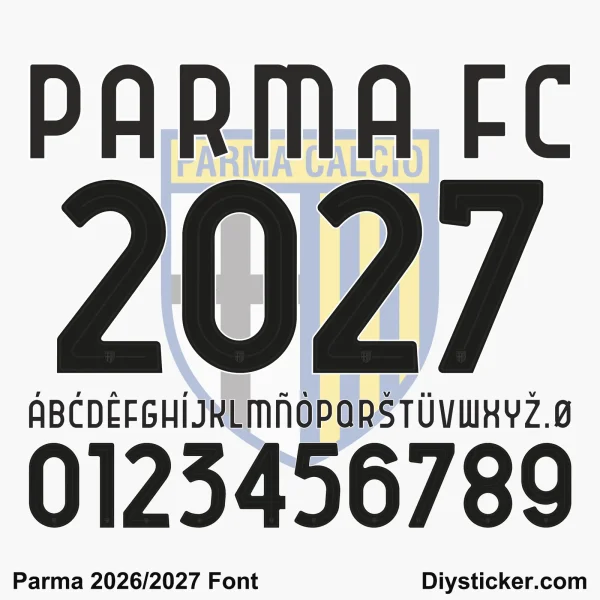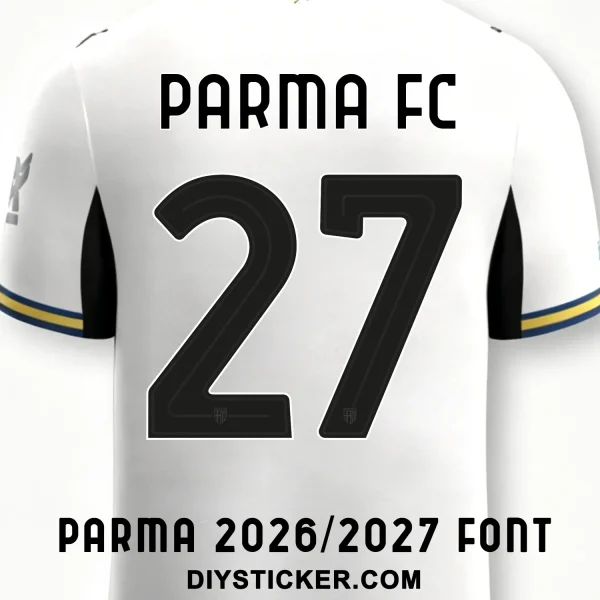
Replicate the classic, modern match-day look of I Crociati! This premium digital file pack features the sleek Parma 2026-2027 Font and Numbers rendered in the club’s iconic matte black tone. It is expertly crafted with a rounded, minimalist aesthetic, subtle tone-on-tone internal borders, and the official club shield crest nested precisely at the base of each character.
Complete uppercase alphabet, squad numbers 0-9, and specific diacritic accents.
Upgrade your custom apparel catalog with the absolute latest look from the Stadio Ennio Tardini! This digital typography product delivers the full Parma Calcio 2026-2027 font style designed for the upcoming Italian football campaigns. Striking a beautiful balance between modern geometric minimalism and traditional athletic identity, this font face features streamlined, elongated proportions accented by rounded corner folds, a clean internal track inlay, and the mini Parma club crest crisping up the bottom of each numeric glyph.
Parma font 2026/2027 Comprehensive Character Mapping
A-Z Uppercase Alphabet: High-contrast, sleek geometric letterforms built for bold pitch legibility and clean tracking on official jersey nameplates.
0-9 Tracked Numbers: Beautifully curved numeric designs showcasing clean matte black bodies, a subtle internal border layout, and integrated mini team crests.
Special Accents & Diacritics: Complete set of punctuation marks and international accents (
Á,Ć,Ê,Ñ,Ò,Š,Ü,Ž,Ø, etc.) to accurately recreate names for domestic and international star players.